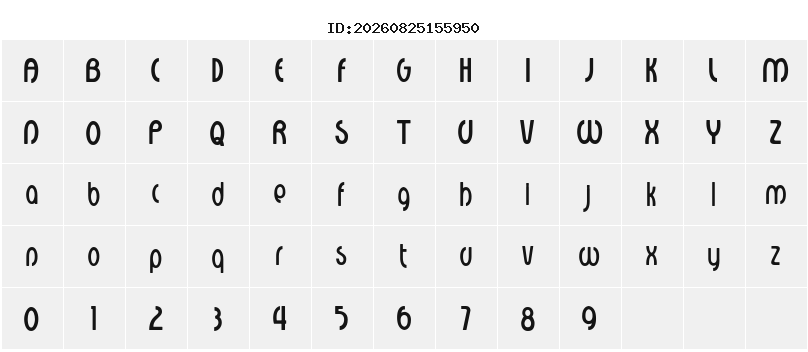
• Font Name: SMCMiami
• Font ID: SMCMiami
• Full Font Name: SMCMiami
• PostScript Name: SMCMiami
About SMCMiami.ttf
SMCMiami.ttf is a modern, elegant sans-serif font designed for ultimate readability and visual harmony. Perfect for branding, headlines, web design, and print materials.